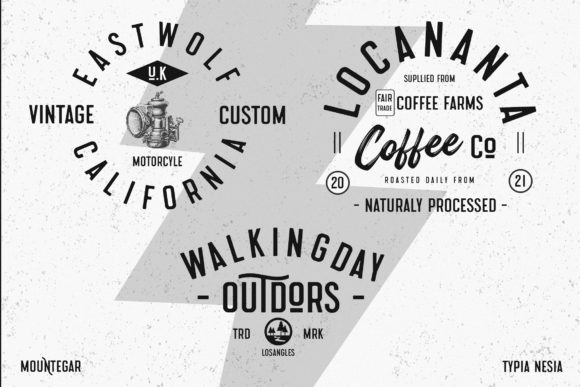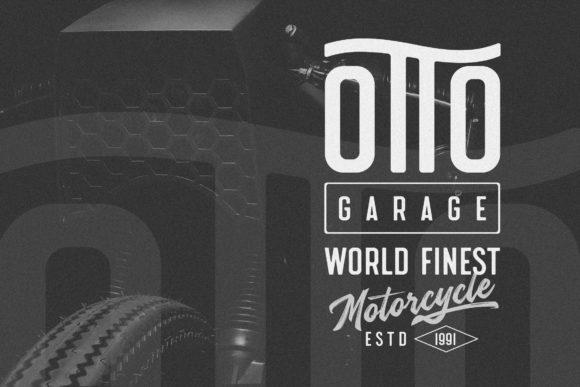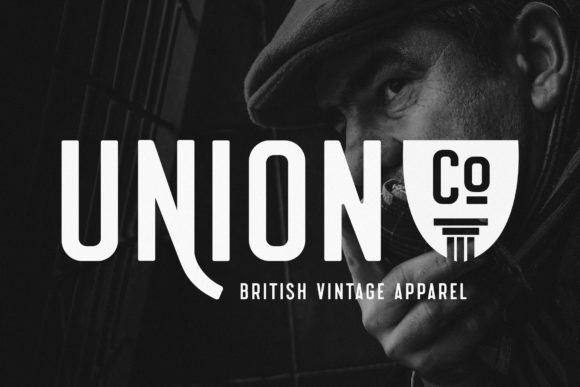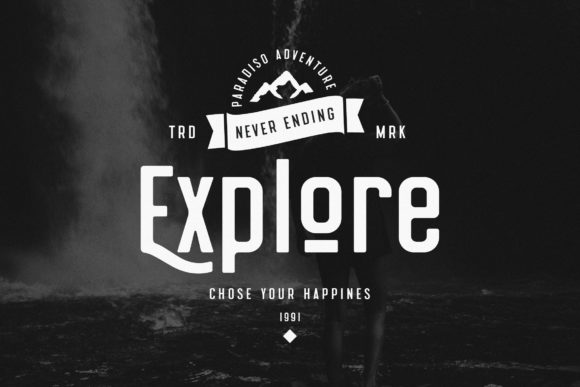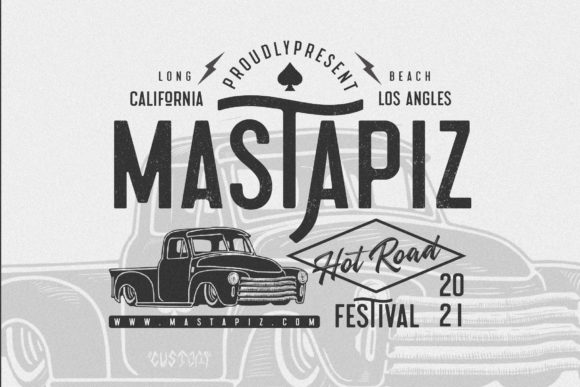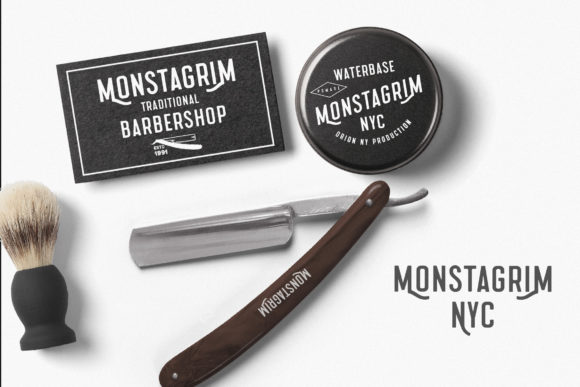
Introduction to Mountager Font
Have you ever been brainstorming for a creative project, only to be stuck on the perfect font to convey the essence of your idea? I’m sure many designers can relate to this moment of frustration. It’s in these moments that we’re reminded of the importance of having a reliable design resource at our disposal.
That’s where the Mountager Font comes in – a classic and vintage styled display font that can add a bold touch to any design project. With its unique aesthetic, Mountager Font is perfect for labels, branding, and any other creative project that requires a high-quality, eye-catching font. Whether you’re working on a personal or professional project, having access to a versatile font like Mountager Font can make all the difference in bringing your vision to life.
Key Features of Mountager Font
- Unique, modern font with a transparent background, allowing for versatile design applications.
- Mountager Font is designed to be highly legible, making it perfect for body text, headings, and titles in various creative projects.
- Easy to customize and style, allowing designers to add a unique touch to their creative projects.
Honest Review: Mountager Font
As a designer, I’m always on the lookout for high-quality design resources to elevate my creative projects. The Mountager Font caught my eye, and I decided to give it a try. Here’s my honest review.
What works well: ✨ The Mountager Font is incredibly versatile and comes in a variety of weights, making it perfect for a range of design applications. The font is also highly legible, even at smaller sizes, which is a must for any design resource.
- High-quality design: The Mountager Font is crisp and clean, with a beautiful, modern aesthetic.
Limitations: ⚠️ While the Mountager Font is a great resource, I did find that it can be a bit too ornate for some design applications. It’s also not suitable for body text, as it’s more of a display font.
Overall impression: I’m impressed with the Mountager Font, and I would definitely recommend it to designers looking for a high-quality, creative font. Just be sure to use it sparingly and in the right context.
The Mountager Font is perfect for a variety of creative projects, including logos, brochures, business cards, and more. Its transparent background makes it easy to layer over other design elements.